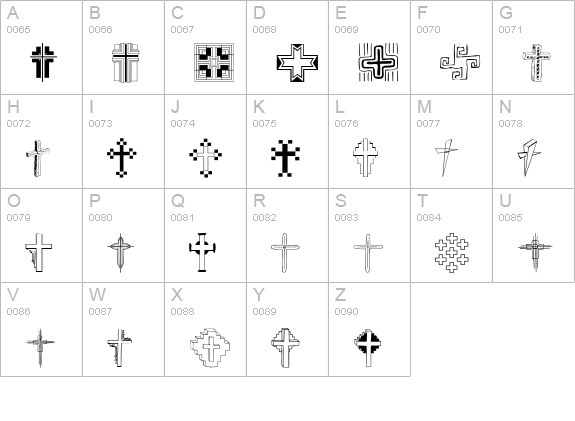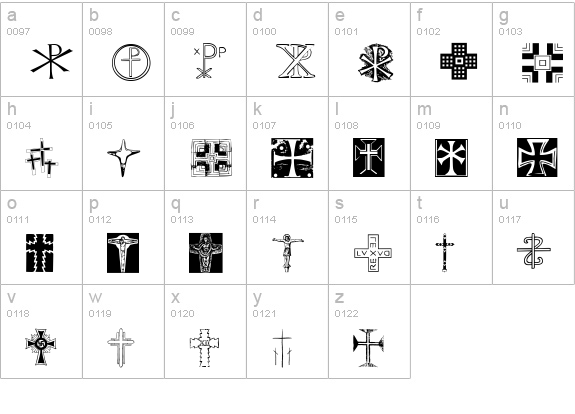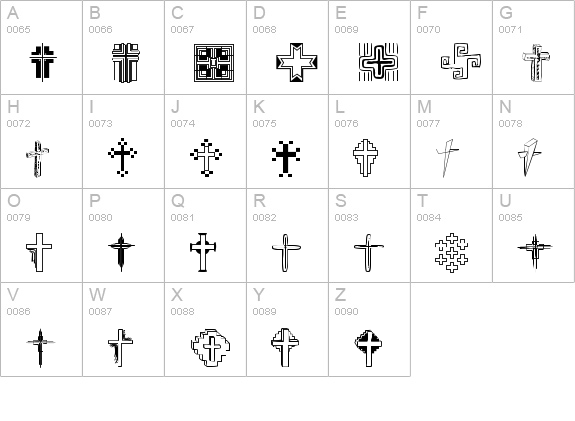
The Christian Crosses II font is a beautifully crafted typeface inspired by traditional religious symbols. Featuring intricate cross designs that exude elegance and reverence, this font is perfect for adding a touch of spirituality to your projects. Whether you're creating invitations, greeting cards, or any other design that calls for a touch of faith, the Christian Crosses II font is sure to make a powerful statement. Best of all, this font is available for free download at FontsMarket.com, making it easily accessible for all your design needs. Embrace the timeless beauty of Christian symbolism with the Christian Crosses II font and bring a touch of sacred artistry to your creations.